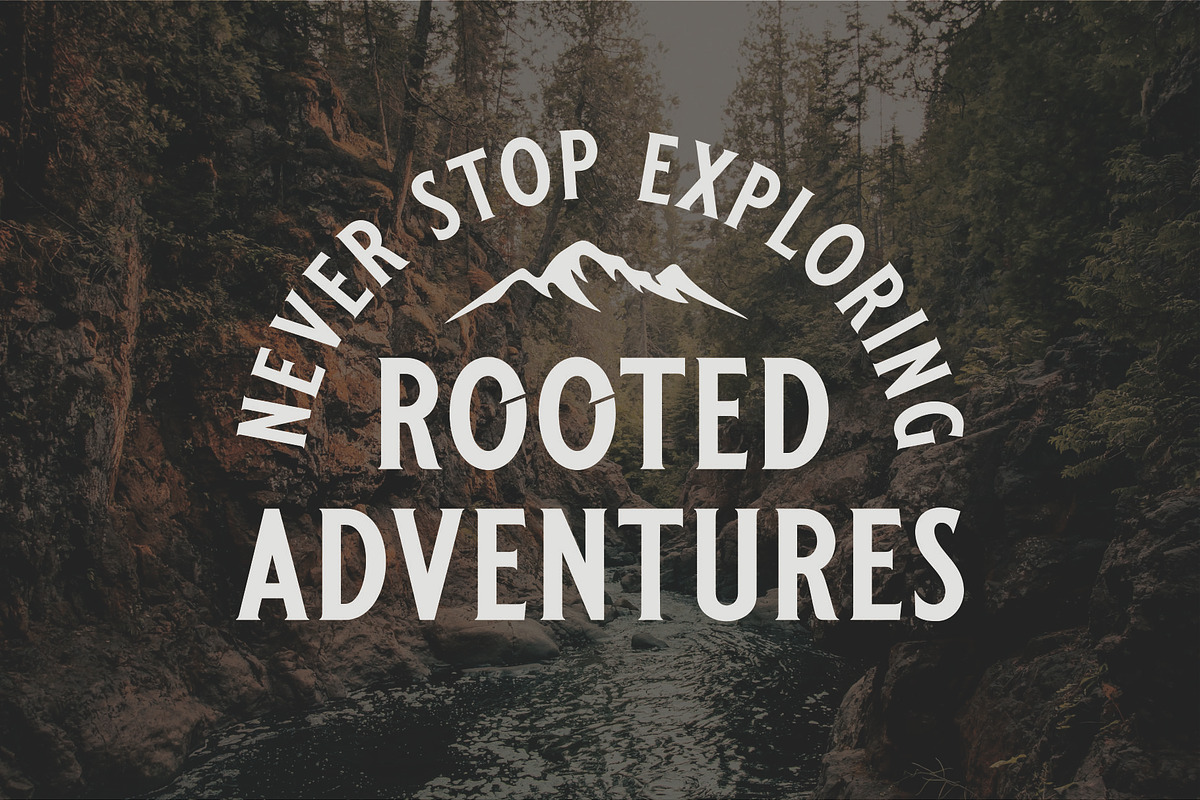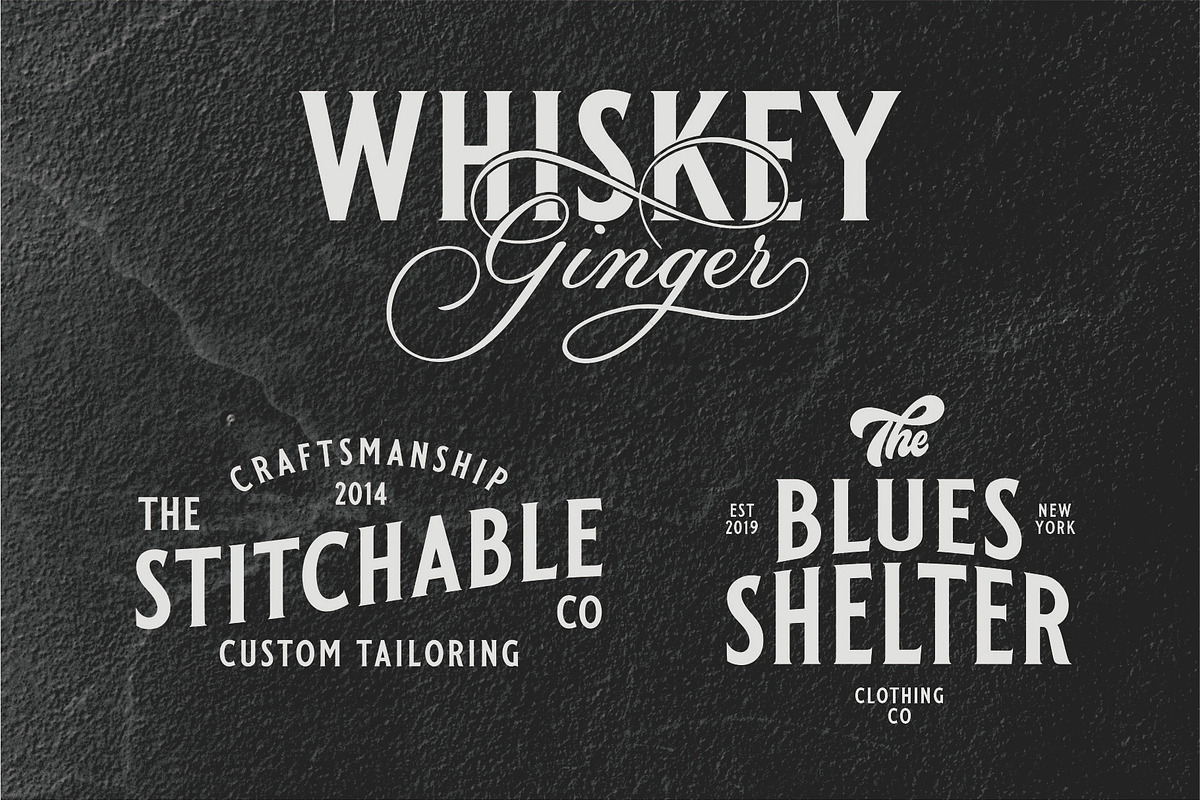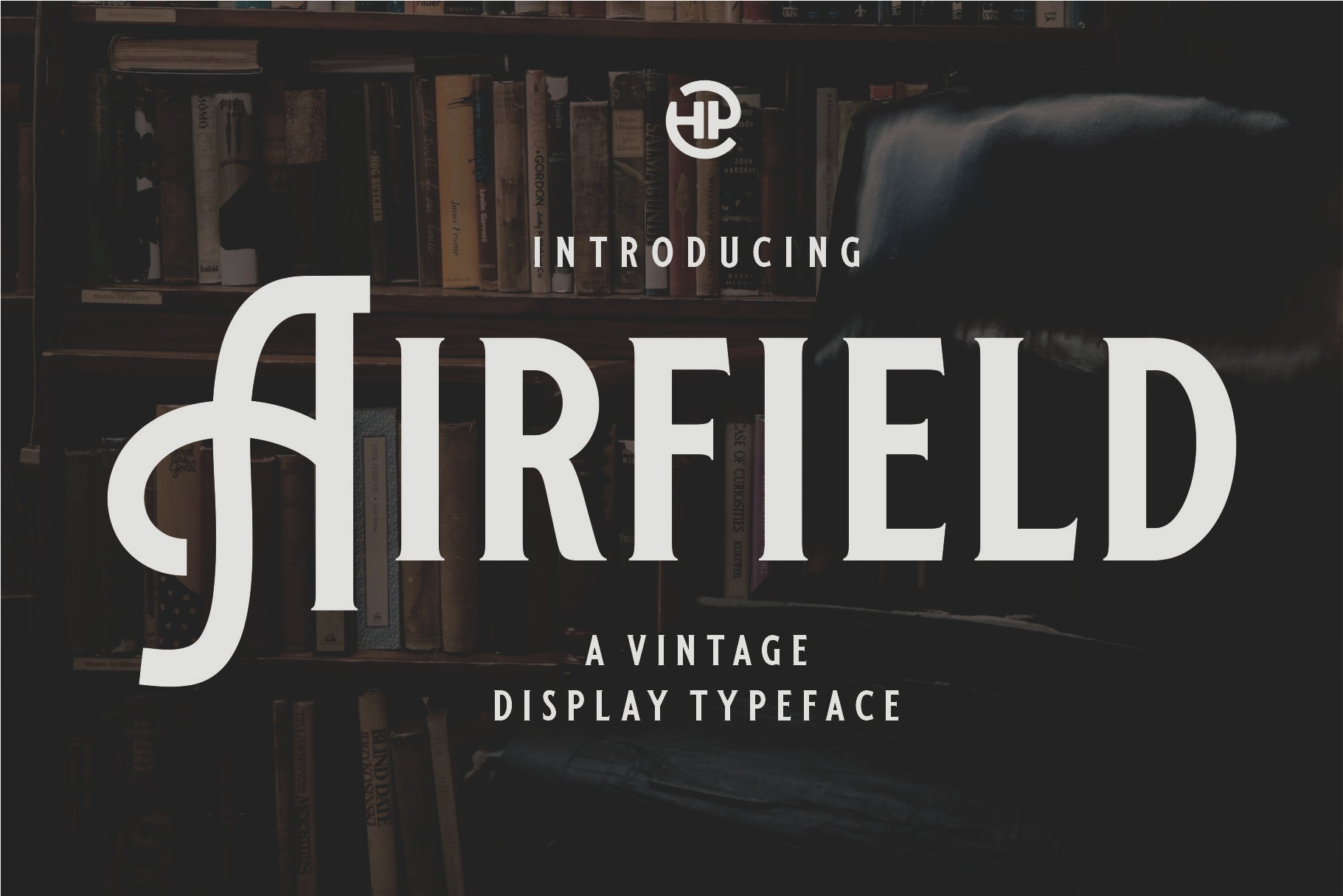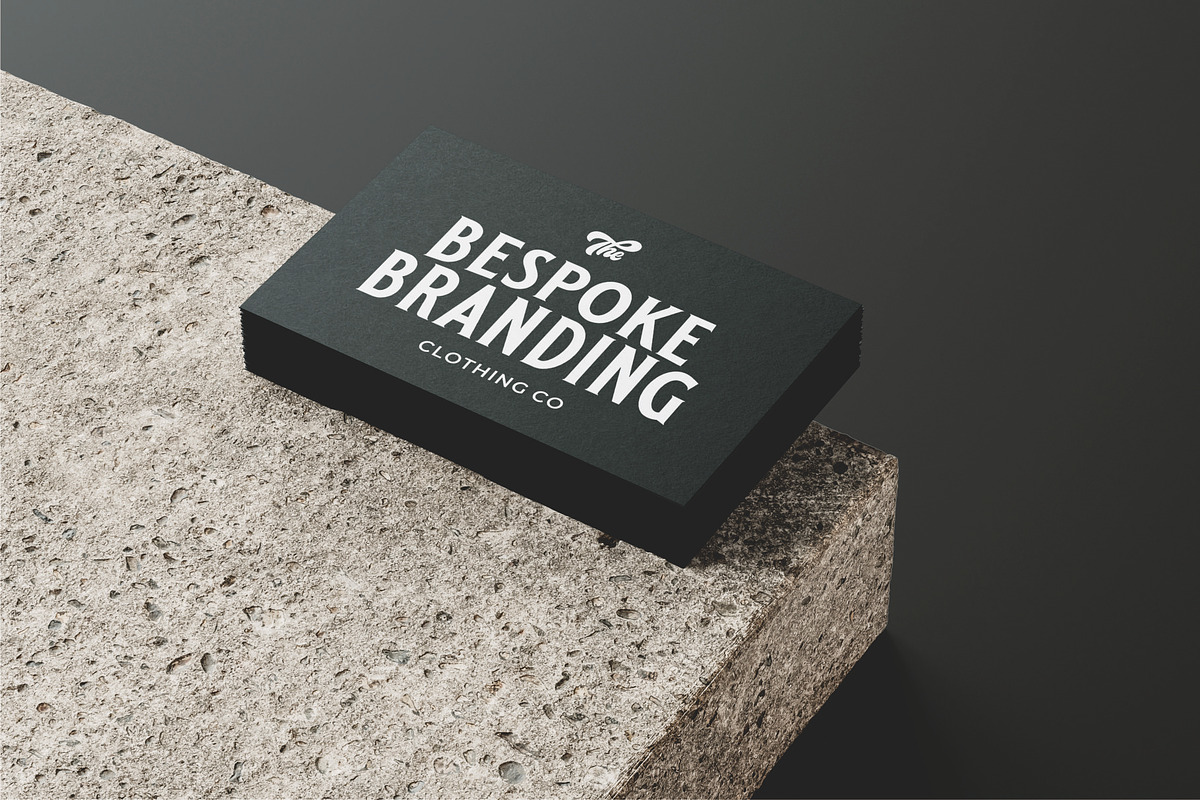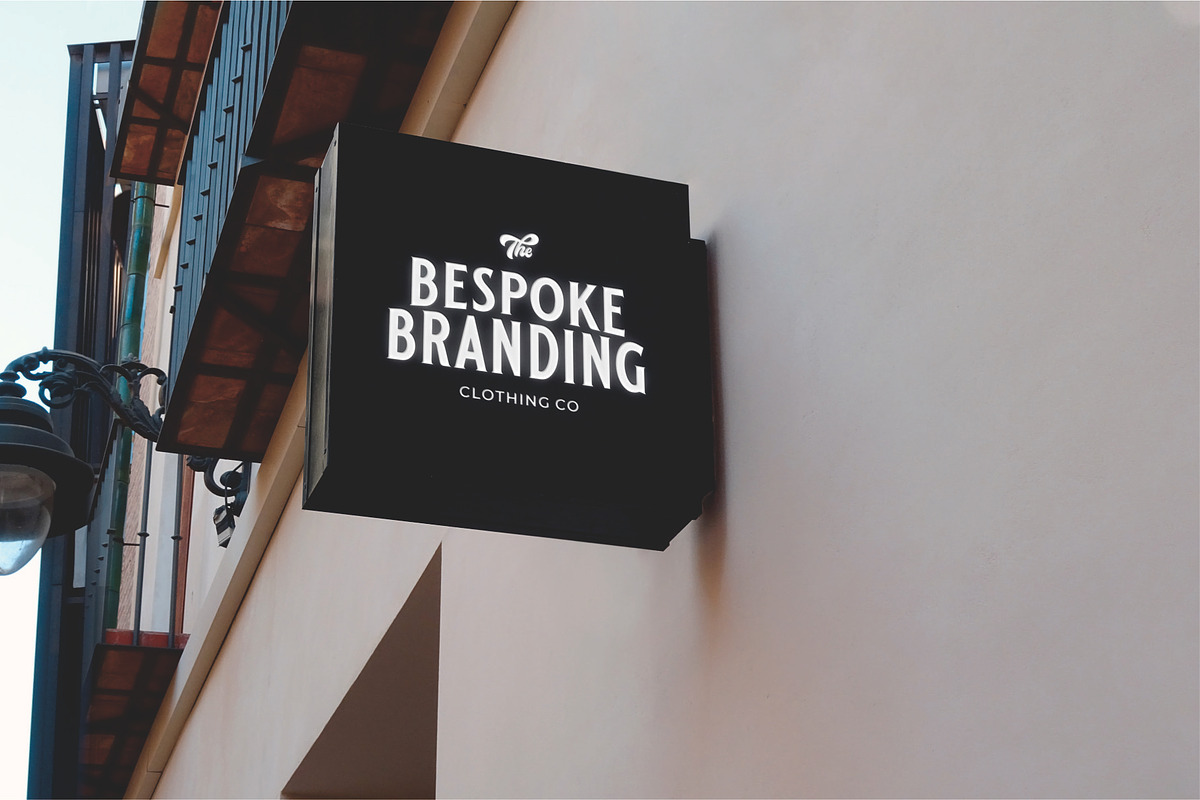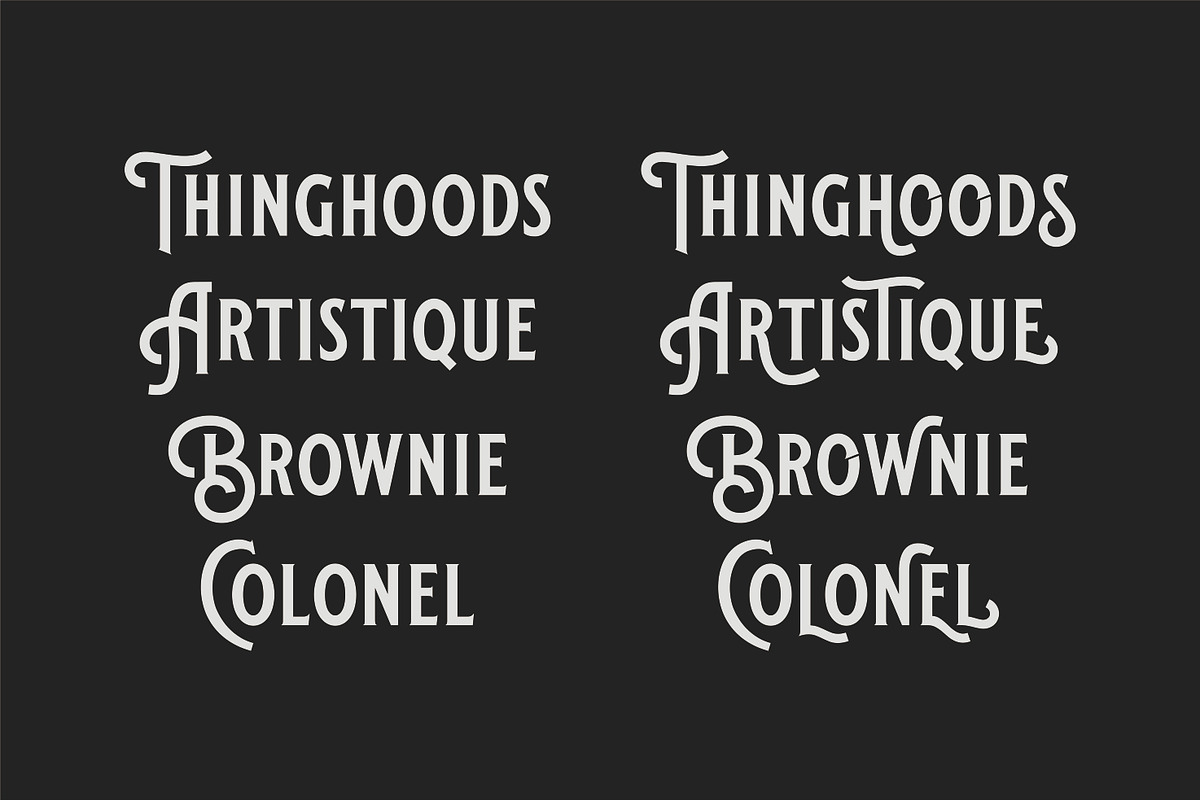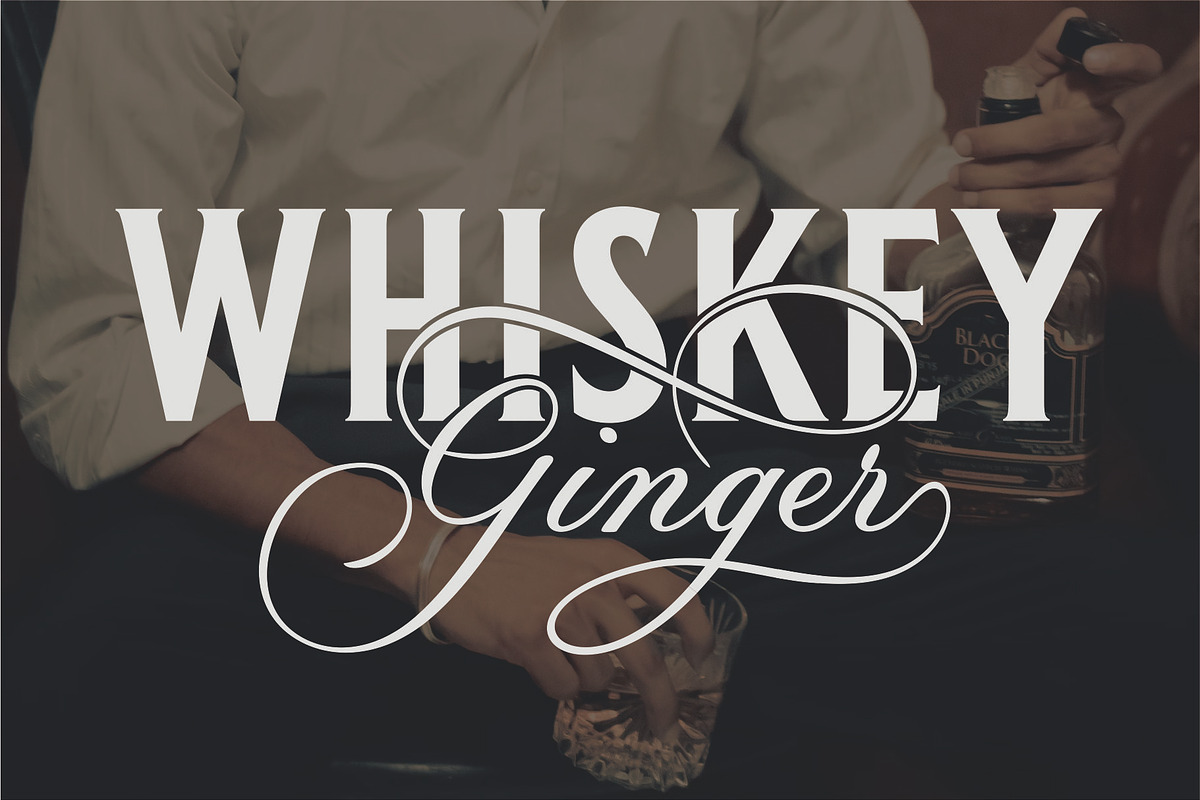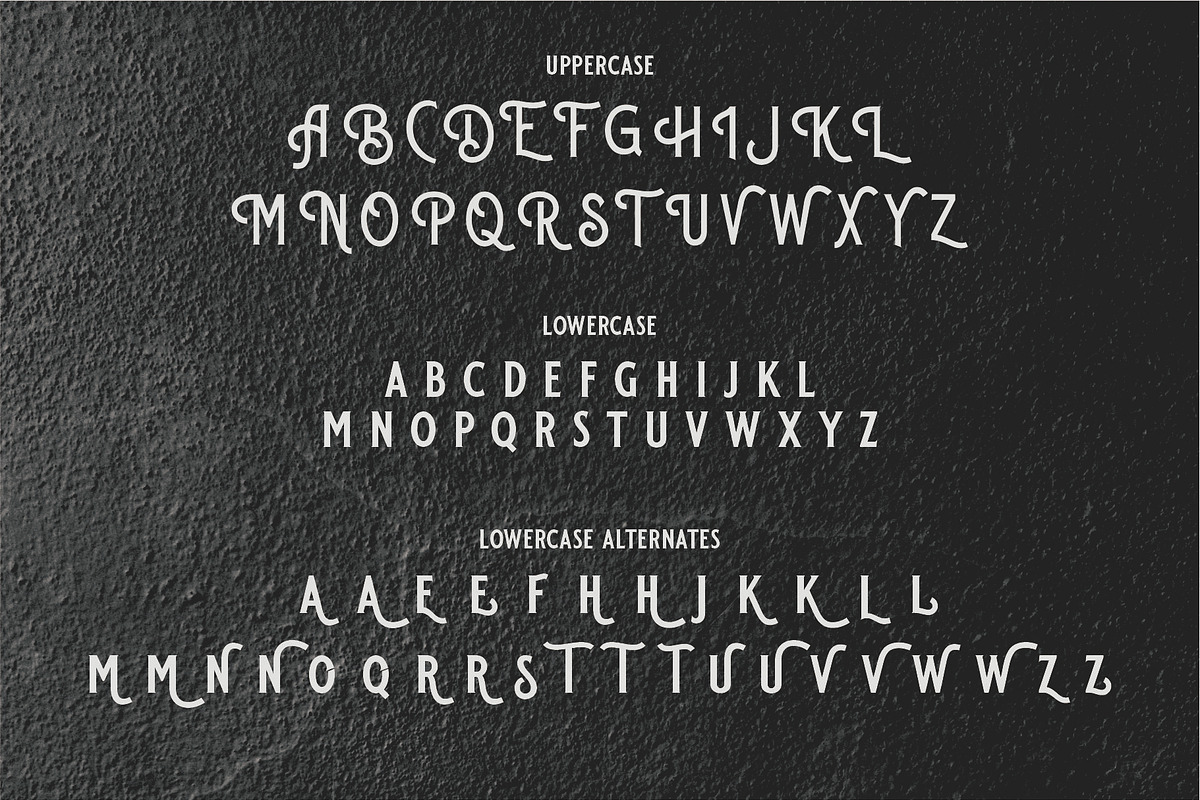
AIRFIELD - Vintage Typeface
Airfield is a masculine vintage display font with a modern flair. This nostalgic font is super fun to work with and is perfect for logo design, headlines or packaging design but really works well for all purposes. This font allows you to easily build beautiful vintage designs.